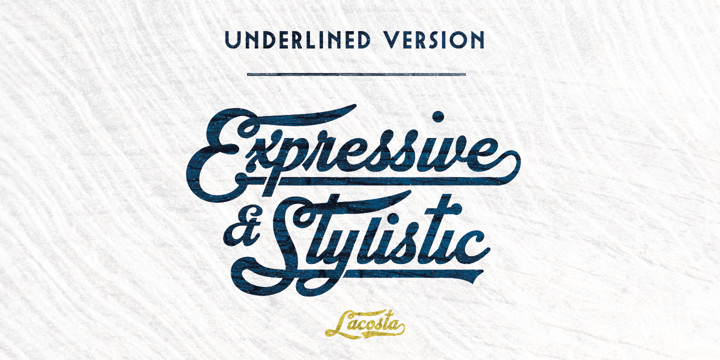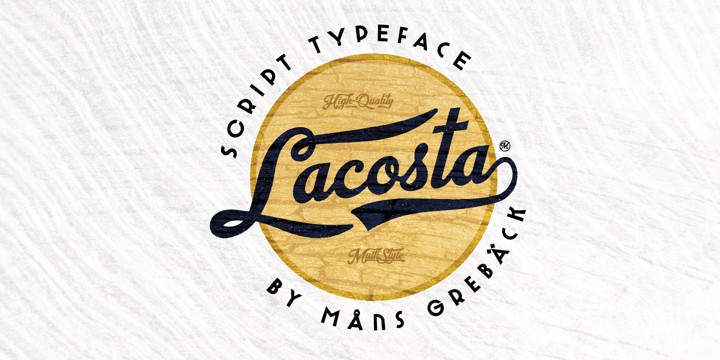
Lacosta Font
Lacosta FontLacosta is a decorative script typeface, drawn and created by Måns Grebäck during 2020.
Perfect for company or product logotypes, or any typographic art that requires that classic custom look.
Included in the family is the Lacosta Line typeface, a swash underlined variation of the original font.